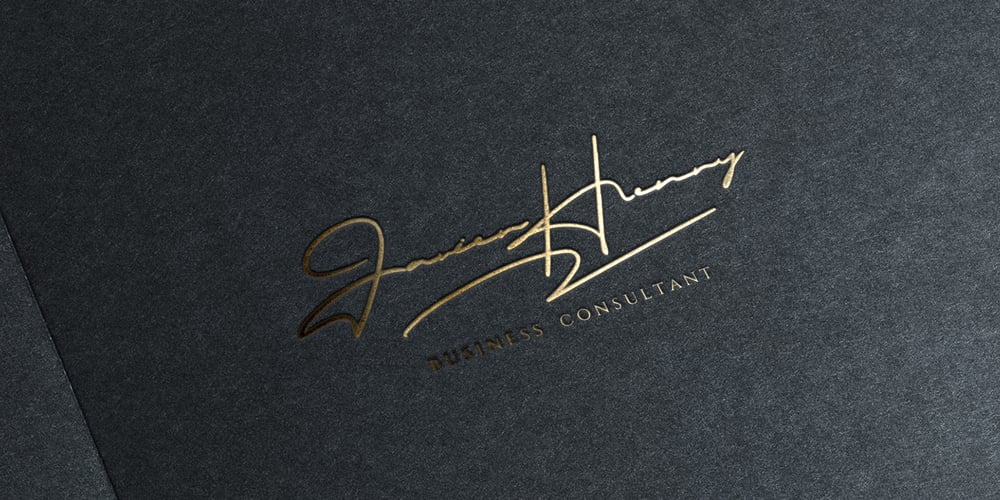
Masculin Font Family was designed by Muhammad Husni Haikal and published by Graphicfresh. Masculin contains 2 styles and family package options. This font took a long time to create, because we spent a lot of time thinking about how to produce an original and real-looking signature font. As a result, we created Masculin! This real signature font is a clean script and has unique character! It’s perfect for logos, name cards, magazine layouts, invitations, headers, or even large-scale artwork.